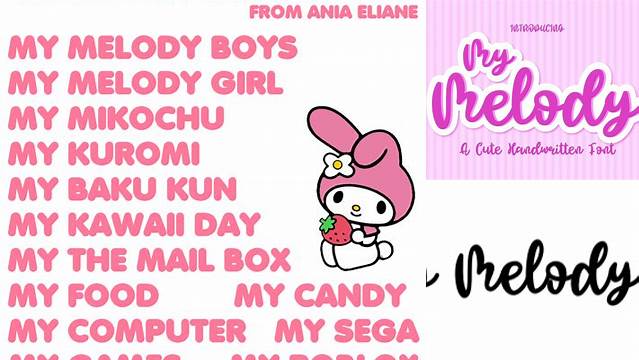
My Melody Font: Free Download & Design Tips
Hey guys! Are you a My Melody fan? I know I am! This article is all about the super cute My Melody font, where you can grab a free download and how to use it to make your designs extra adorable. We'll dive into everything from the font's charming style to how you can use it to create some amazing stuff. So, let's get started!
What is the My Melody Font?
First things first, what exactly is the My Melody font? Well, it's a font inspired by the iconic Sanrio character, My Melody. It's designed to capture the sweet and playful essence of the character. It's often characterized by its rounded, bubbly letters, soft curves, and a generally cute aesthetic. Think of it as the visual equivalent of a warm hug! The font is perfect for adding a touch of charm and whimsy to your projects. It's ideal for anything from creating adorable invitations and social media graphics to crafting personalized gifts and decorating your digital scrapbook.
The My Melody font isn't just a font; it's an experience. It brings a sense of joy and nostalgia to any project you use it on. It embodies the sweet, innocent, and lovely nature of My Melody. Using the font is a surefire way to make your work pop. If you're planning a birthday party with a My Melody theme, using the font for invitations, banners, and even labels can really tie everything together. Or, if you're creating content for social media, using the font can instantly grab attention and give your posts a unique, adorable look. The versatility of the font is a major plus. It's suitable for both personal and commercial use, offering endless possibilities for creative expression. And guess what? Many versions are available for free download, making it accessible to everyone. So you don't have to break the bank to add some cuteness to your designs.
One of the things that makes the My Melody font so special is its ability to evoke emotions. It's designed to make people smile, and it does just that! Whether you're creating designs for kids or adults, the font adds a special touch. It is well-suited for anything from creating invitations, flyers, and posters to designing websites. And, its unique style enables you to create visually attractive designs that can attract your target audience. Plus, many creators offer My Melody-inspired fonts, allowing for variety and creativity in your designs. Because each creator offers their own unique style, you can experiment and find the perfect one that aligns with your vision. This flexibility is a major bonus, especially if you're working on various projects, each requiring a slightly different feel.
Once you've got the font in place, you can start playing around with it. Experiment with different colors, sizes, and styles. The My Melody font looks great in pastels, like pink, baby blue, and lavender. But, you can use any colors that match your project. You can also add effects like shadows, outlines, and gradients to make your text pop. Since the font is naturally cute, avoid overdoing it with too many effects. Sometimes, less is more! Consider how the font will look on different backgrounds. If you're designing a flyer, make sure the text is easy to read against the background image or color. Use the font to create eye-catching headings, titles, and short phrases. The My Melody font works wonders for adding a touch of whimsy to any design. Create invitations, greeting cards, or posters, use the font on your social media profiles, or add it to your website. The possibilities are endless.
Design Inspiration and Ideas
Looking for some design inspo? You're in luck! The My Melody font is amazing for a lot of different things. For party invitations, use the font to create sweet and friendly invitations. You can pair it with other cute elements, such as images of My Melody or other Sanrio characters, to make the invitation even more attractive. This is an especially good idea if the party has a My Melody theme. For social media graphics, use the font for your Instagram, Facebook, or Pinterest posts. Create engaging quotes, announcements, or even memes with the font. The font can easily grab attention. It can help set your content apart from the competition. For scrapbooking and journaling, add the font to your digital or physical scrapbook pages. Create titles, captions, and decorative elements with the font. The font can help make your scrapbook pages more personal. Add a unique touch, and capture the sweet, lovely, and joyful nature of My Melody.
For creating personalized gifts, use the font to customize anything. Create mugs, t-shirts, stickers, or any other gift to add a personal touch to your gifts. Also, for websites and blogs, the font can be used to create attractive headings, subheadings, and titles for your blog. The font can boost your site's appeal and make it more enjoyable for visitors. Remember to keep the font consistent with your brand. The possibilities are endless when you start exploring and experimenting with the My Melody font. Play around with different combinations and get creative! You're sure to come up with something you'll love. And who knows, you might discover your new favorite design style!
Conclusion: Bring on the Cuteness!
There you have it, guys! Everything you need to know about the My Melody font and how to use it. Remember to check out those free download sites, install the font on your computer, and start creating some adorable designs. The My Melody font is perfect for adding a touch of cuteness to any project. This is the best way to make your designs more eye-catching and fun. Have fun experimenting, and don't be afraid to let your creativity shine! Now go forth and make some super cute stuff. And as a final note, always remember to respect the font's licensing agreements. Happy designing!